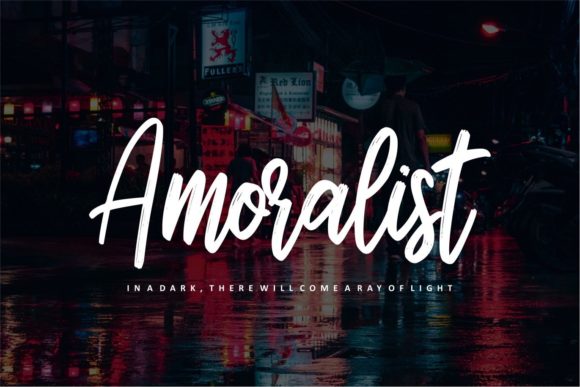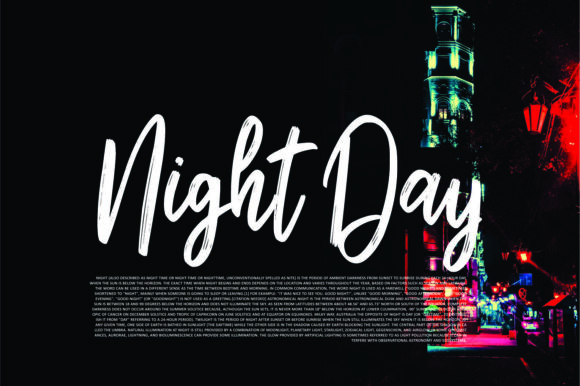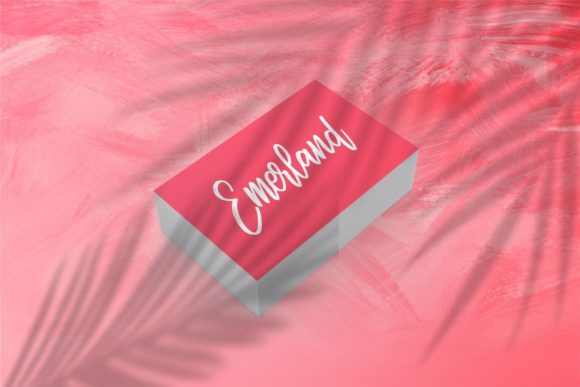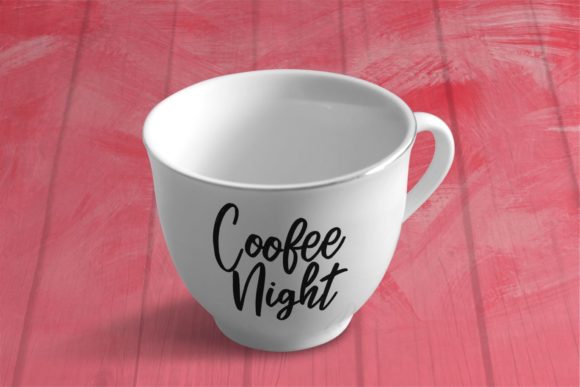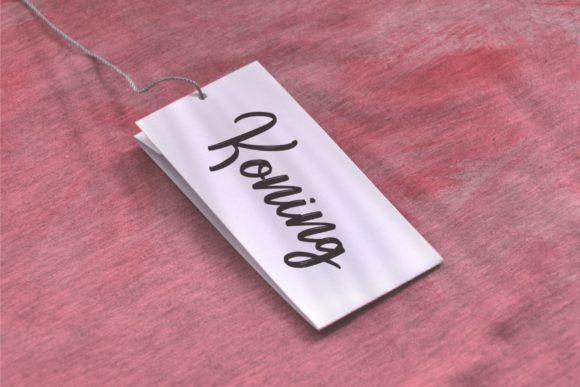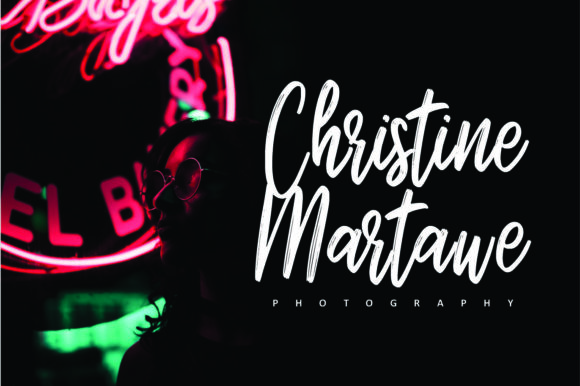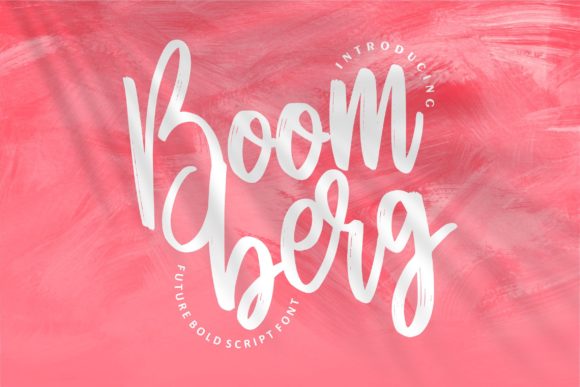
Introducing Boomberg Font: The Sweet and Delicate Handwritten Font for Romantic Designs
Are you a designer or crafter looking for a font that can add a touch of romance and personalization to your designs? Look no further than Boomberg Font! This sweet and delicate handwritten font is perfect for creating beautiful wedding invitations, cards, and other designs that require a special touch.
What Makes Boomberg Font Special?
Boomberg Font is a unique and charming font that is sure to capture the hearts of designers and crafters alike. Its dainty and joyful design makes it ideal for a variety of projects, from wedding invitations and cards to party decorations and social media graphics. The font’s delicate and handwritten style gives it a personal and romantic feel, making it perfect for designs that require a special touch.
Characteristics of Boomberg Font
So, what makes Boomberg Font so special? Here are some of its key characteristics:
- Sweet and delicate design: Boomberg Font features a sweet and delicate design that is perfect for creating romantic and personalized designs.
- Handwritten style: The font’s handwritten style gives it a personal and unique feel that is sure to stand out.
- Dainty and joyful: Boomberg Font is dainty and joyful, making it perfect for designs that require a light and airy feel.
- Romantic and personalized: The font’s romantic and personalized style makes it perfect for wedding invitations, cards, and other designs that require a special touch.
Uses for Boomberg Font
Boomberg Font is a versatile font that can be used for a variety of projects, including:
- Wedding invitations: The font’s romantic and delicate design makes it perfect for creating beautiful wedding invitations.
- Cards: Boomberg Font is ideal for creating personalized cards for special occasions, such as birthdays, anniversaries, and holidays.
- Party decorations: The font’s playful and joyful design makes it perfect for creating party decorations, such as banners, garlands, and signs.
- Social media graphics: Boomberg Font can be used to create beautiful and eye-catching social media graphics, such as Instagram posts and Facebook covers.
Tips for Using Boomberg Font
Here are some tips for using Boomberg Font in your designs:
- Pair it with other fonts: Boomberg Font can be paired with other fonts to create a unique and interesting design.
- Use it in combination with images: The font’s delicate design makes it perfect for use in combination with images, such as flowers, lace, and other romantic elements.
- Experiment with colors: Boomberg Font can be used with a variety of colors, from soft pastels to bold and bright hues.
In conclusion, Boomberg Font is a sweet and delicate handwritten font that is perfect for designers and crafters looking to add a touch of romance and personalization to their designs. Its dainty and joyful design makes it ideal for a variety of projects, from wedding invitations and cards to party decorations and social media graphics. With its versatility and charm, Boomberg Font is sure to become a favorite among designers and crafters alike.